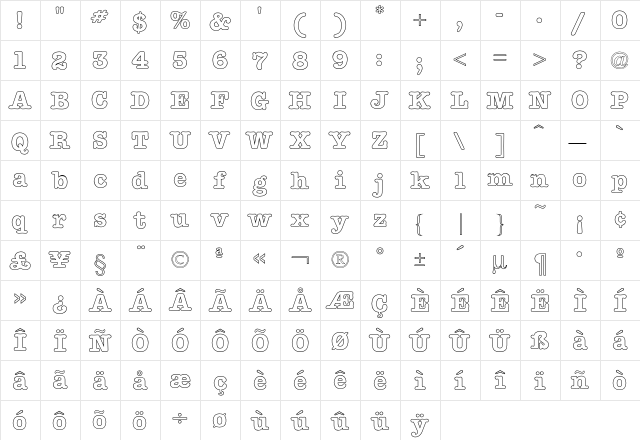
American TypeOutline
Design Context for American Typeface
American brings ornamental detail and strong personality to headlines and identities, where visual impact matters more than quiet functionality.
Font Pairing: Pair with a clean neutral sans-serif for body copy to let American's character lead without overwhelming the composition.
Pro Tip: Treat American as the centrepiece of your typographic hierarchy. One strong heading set in a decorative face can carry an entire layout.